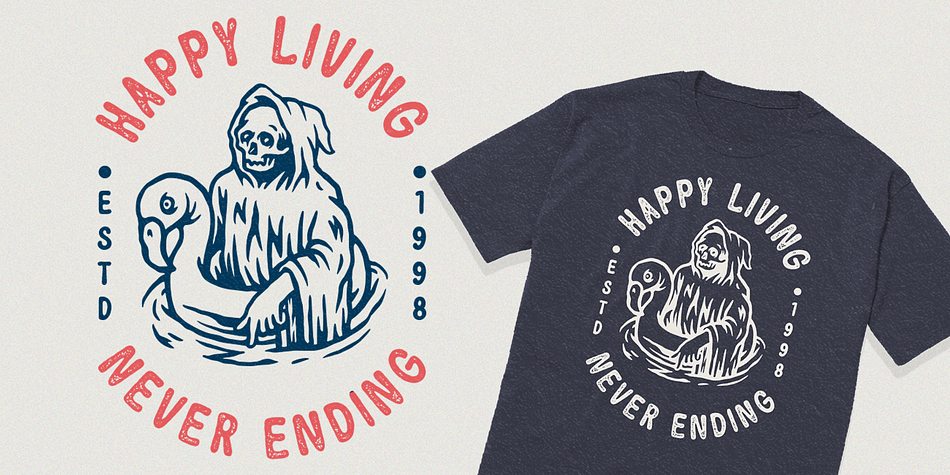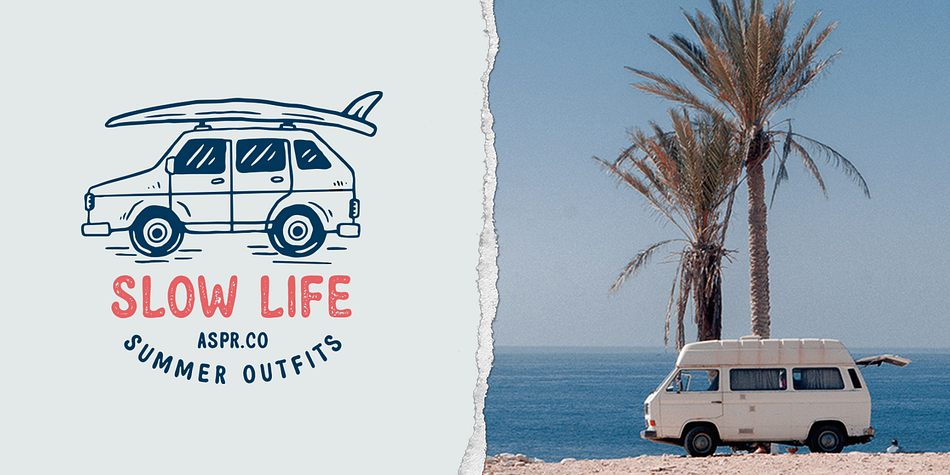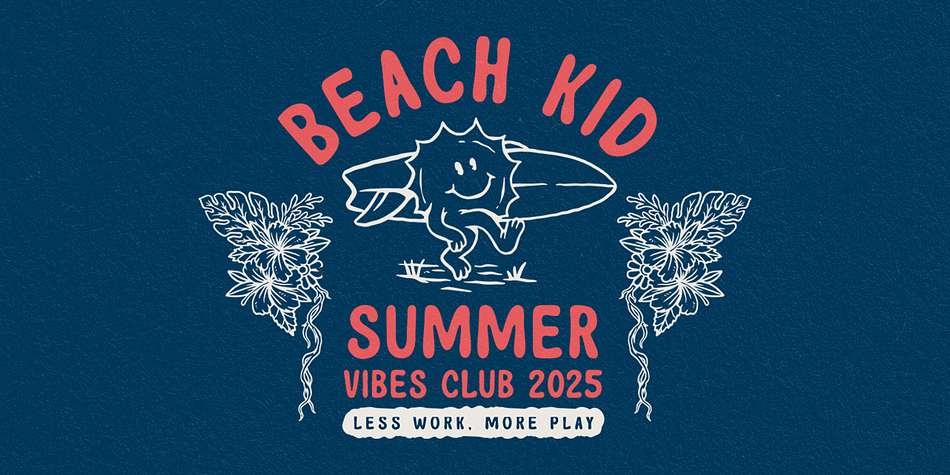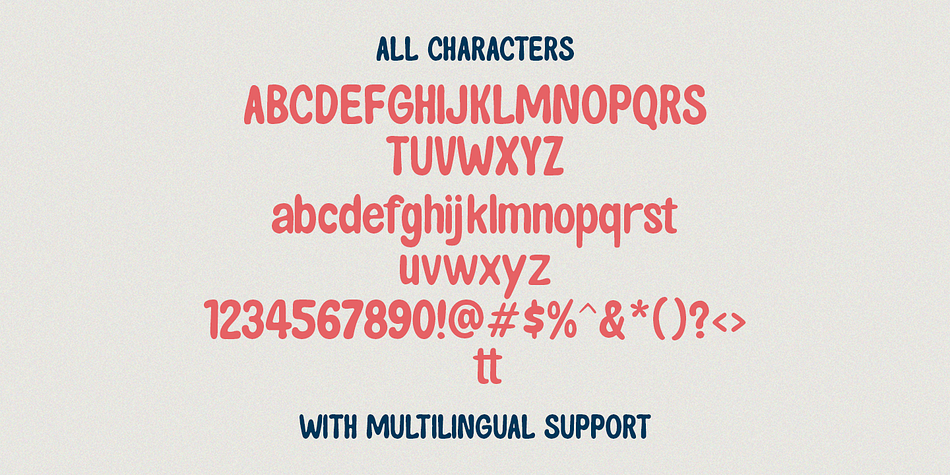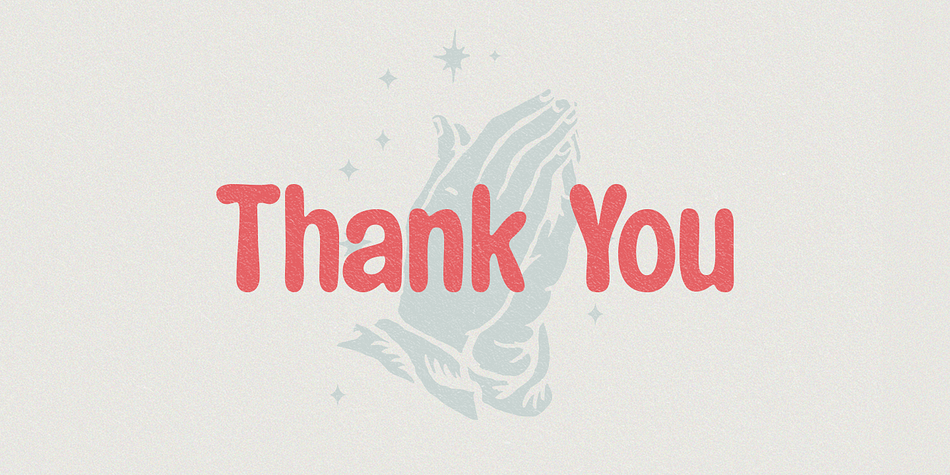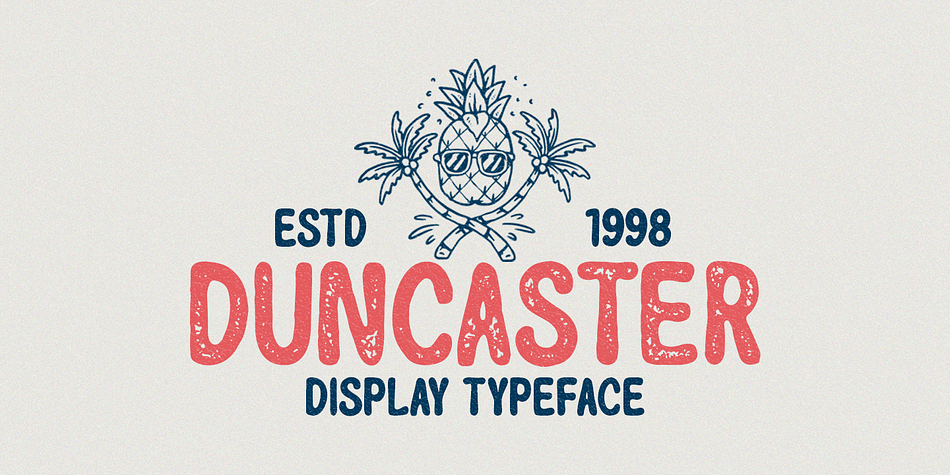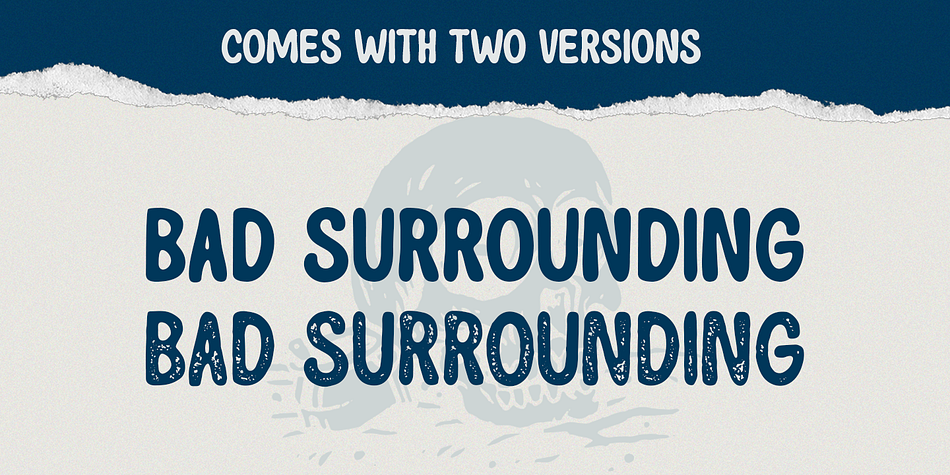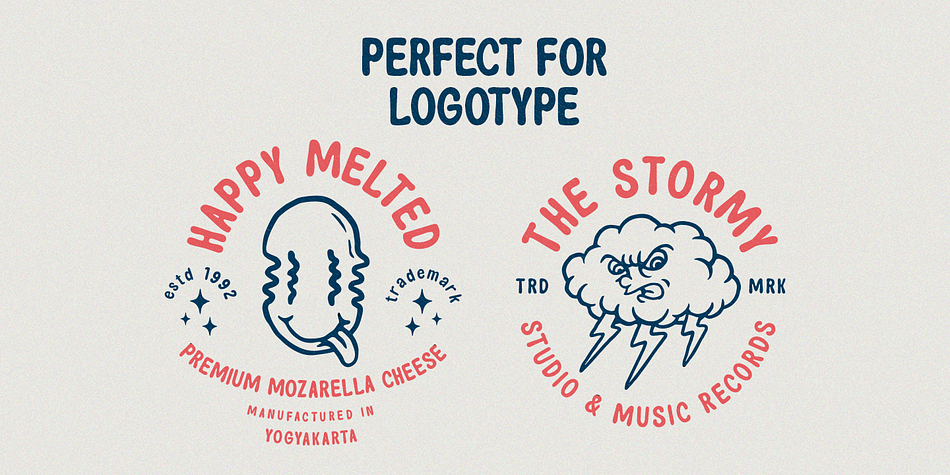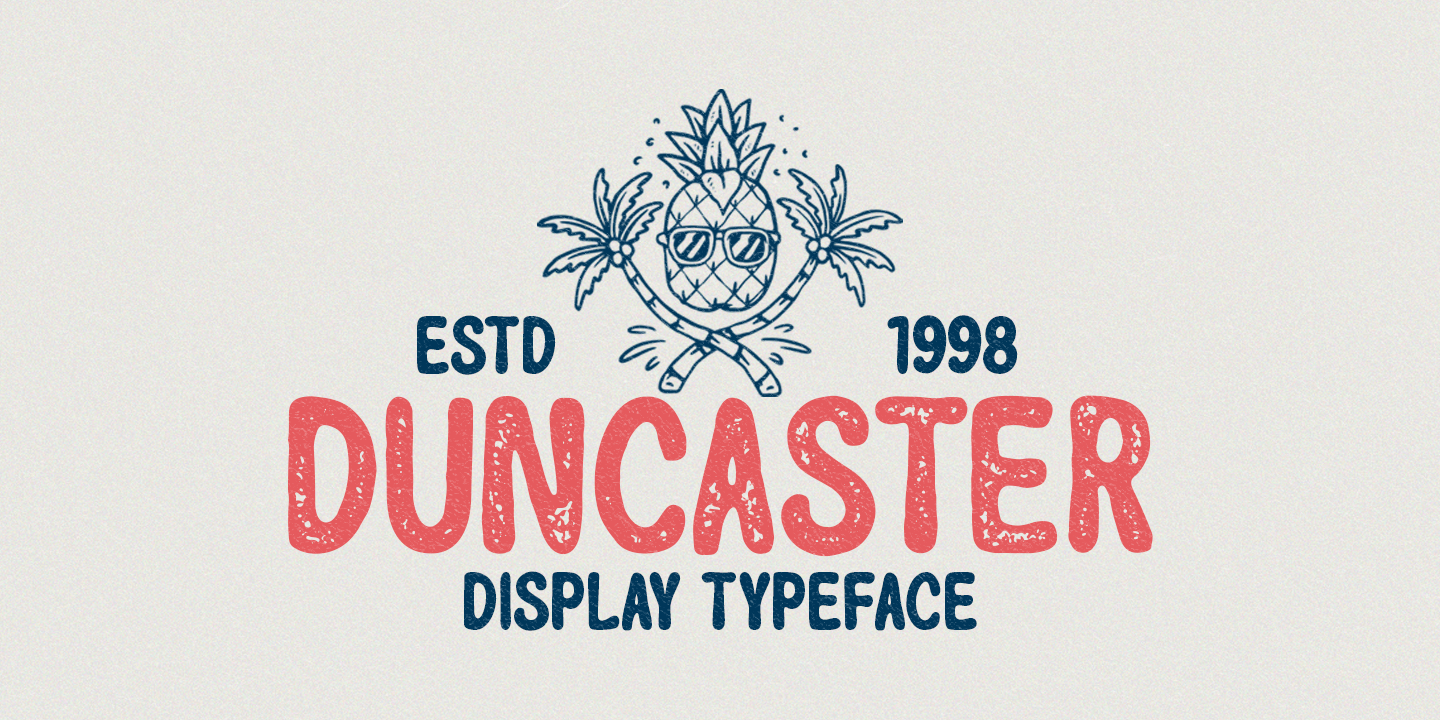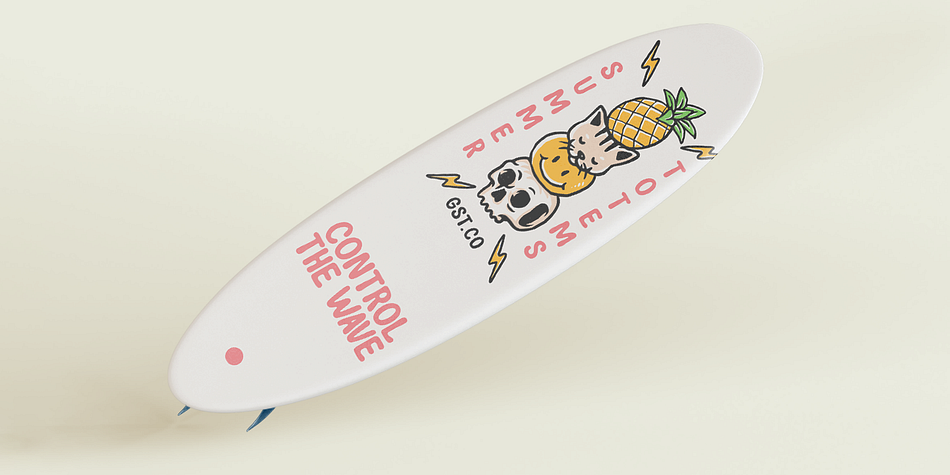
Designed by Hendry Juanda, Duncaster is a hand display font family. This typeface has two styles and was published by Letterhend Studio.
Duncaster is an organic font with natural vibes! Contain two fonts, Sans and Serif with Rough and Stamp Style. You can use this font for every project. Suitable for branding logo, hand lettering, or apparel design. This font duo also support multilingual, number and symbol.